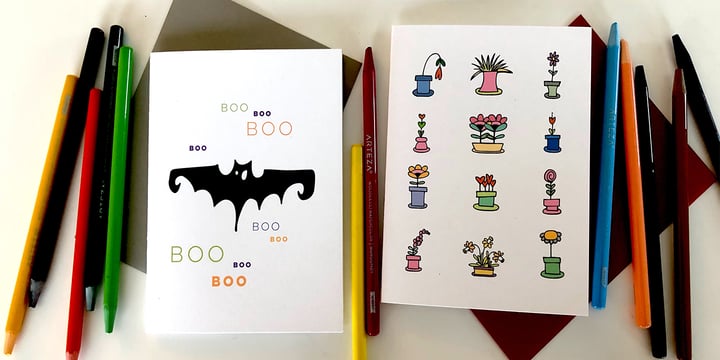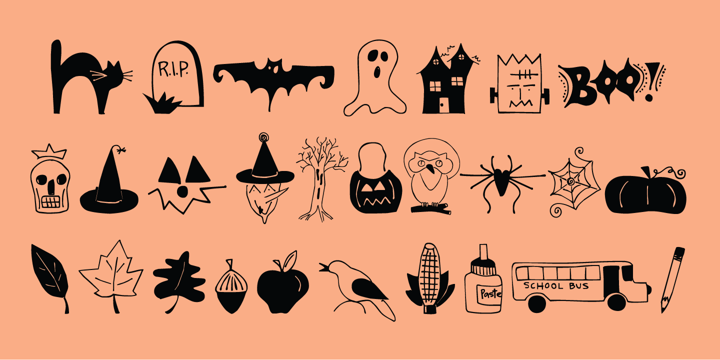
Just Fall Holidays
Just Fall Holidays™ by Outside the Line
Just Fall Holidays Font Family was designed by Rae Kaiser, Justine Childs and published by Outside the Line. Just Fall Holidays contains 1 styles. More about this family
About Just Fall Holidays Font Family
Lots of Fall fun, many Halloween icons... black cat, haunted house, witch hat, ghost, scary masks, pumpkins, bat, BOO! and more. Plus back to school icons... bus, pencil, flashcards, paste, leaves and an apple for the teacher.
Designers: Rae Kaiser, Justine Childs
Publisher: Outside the Line
Foundry: Outside the Line
Design Owner: Outside the Line